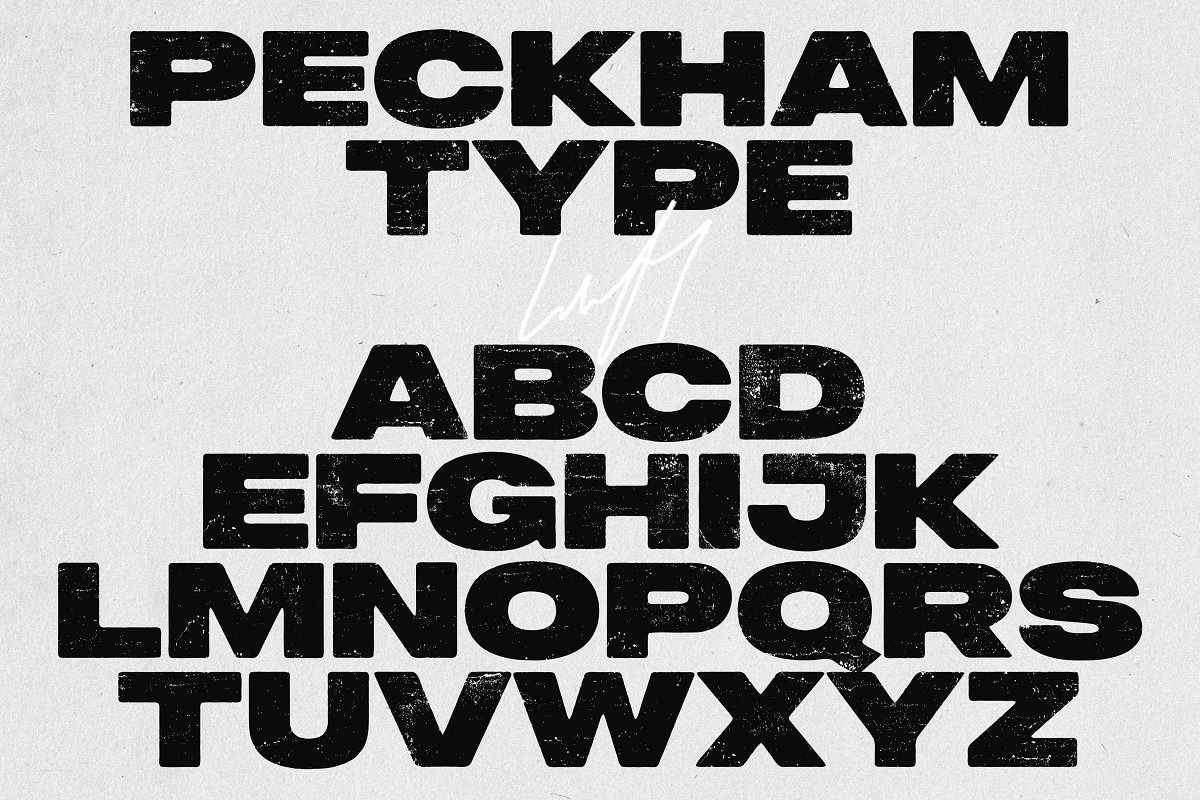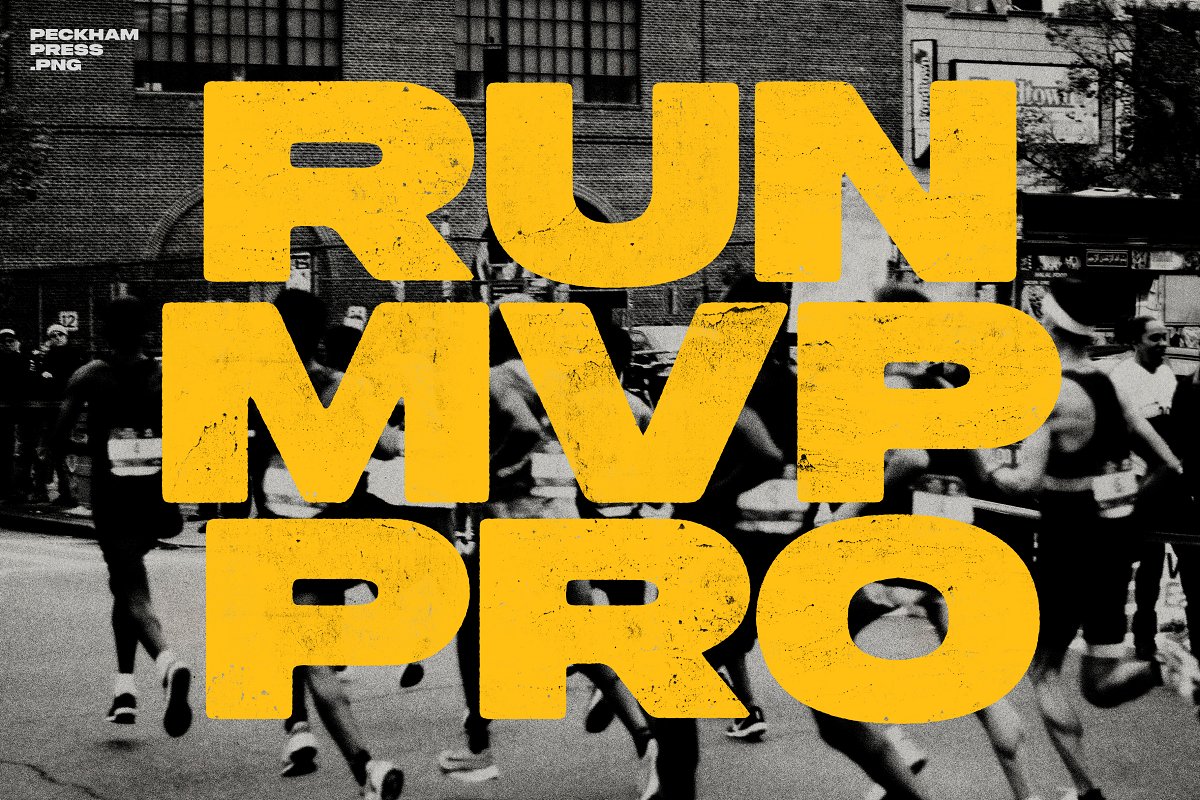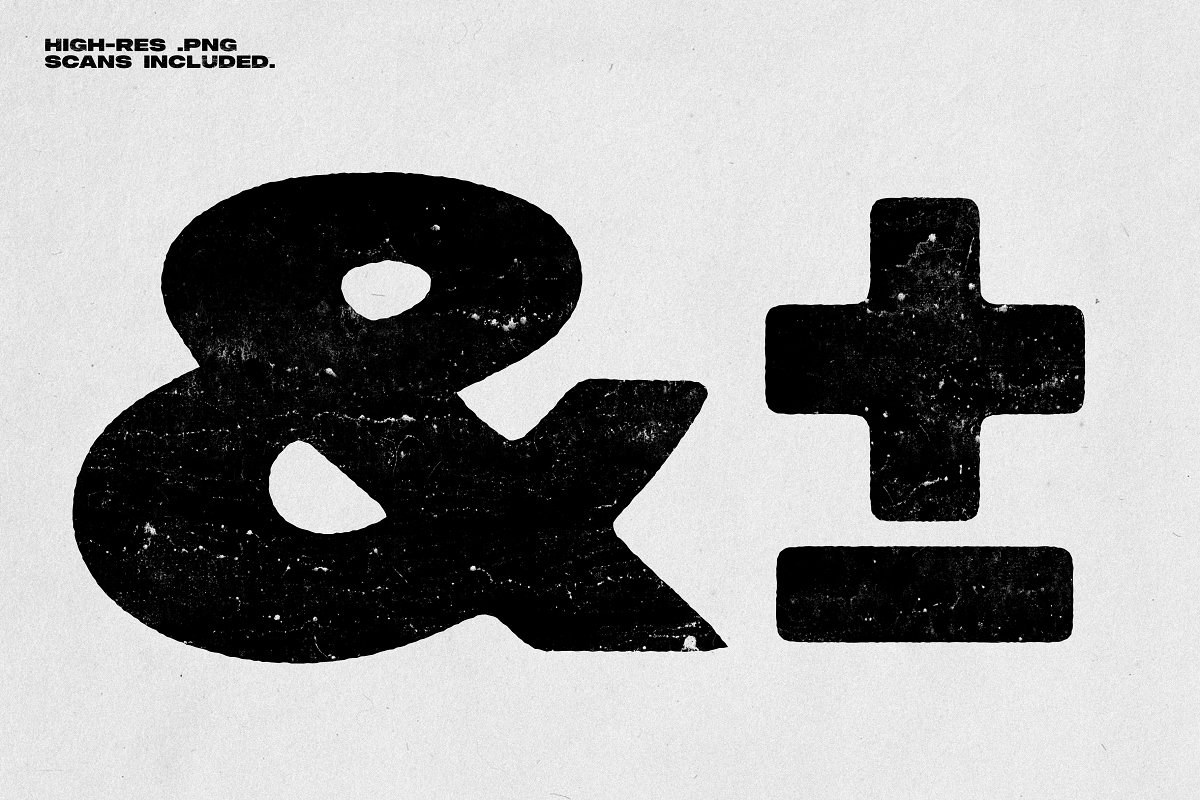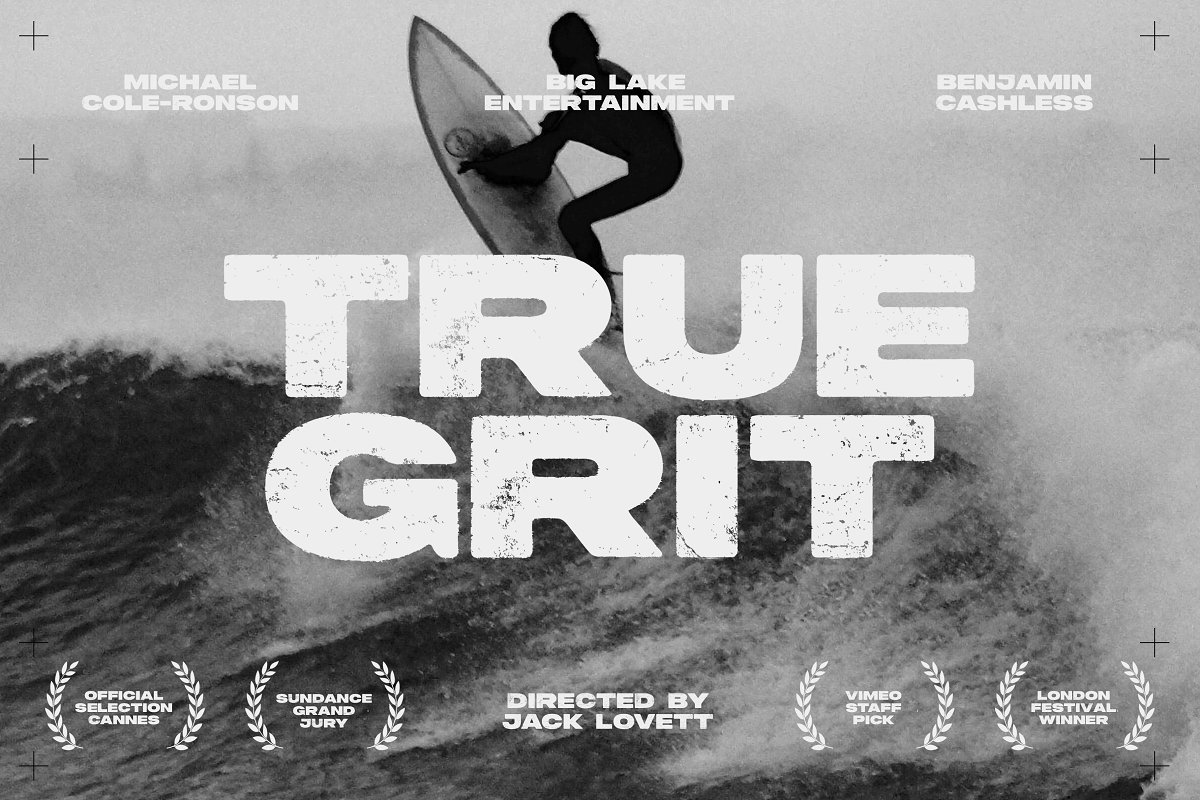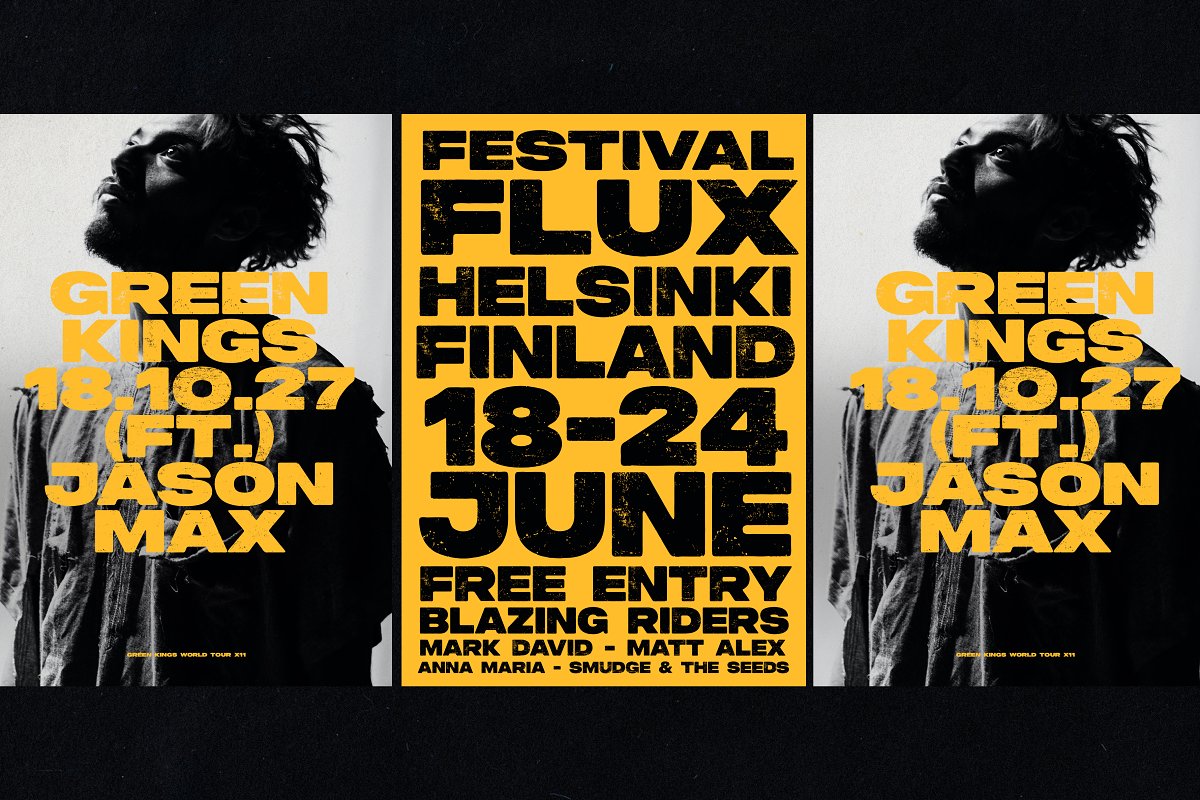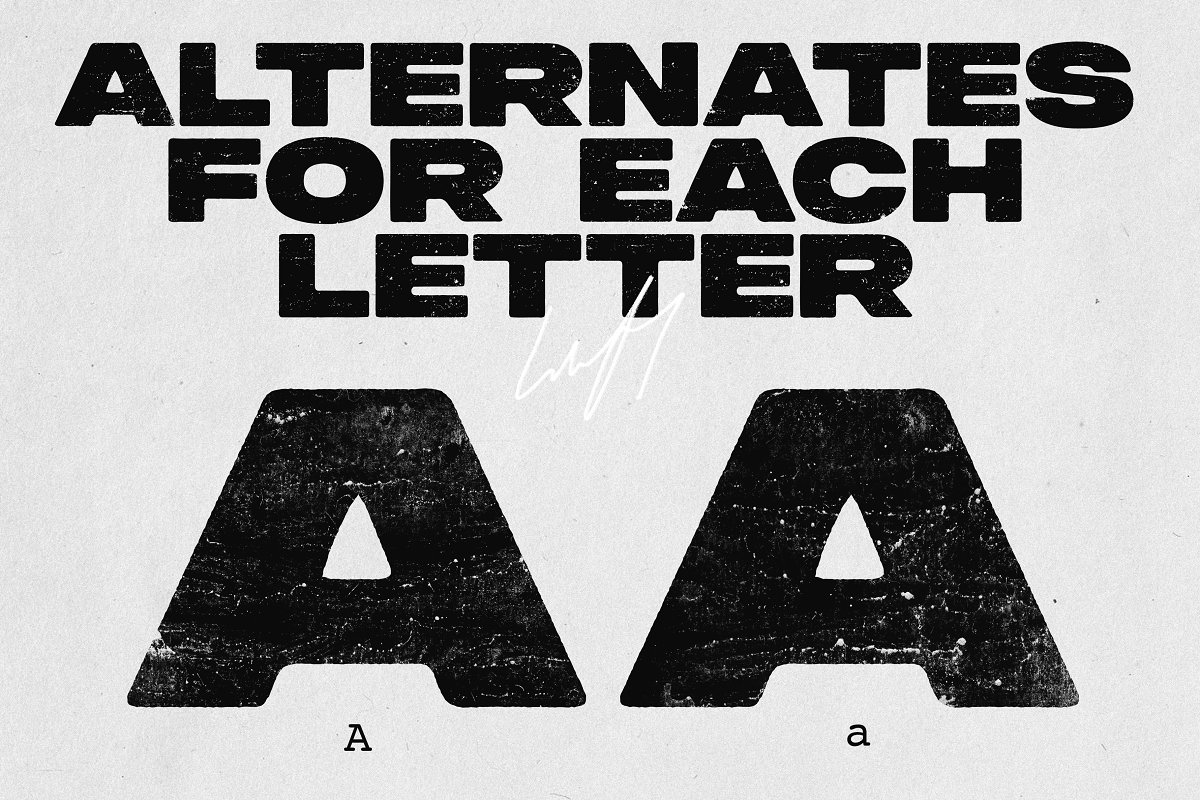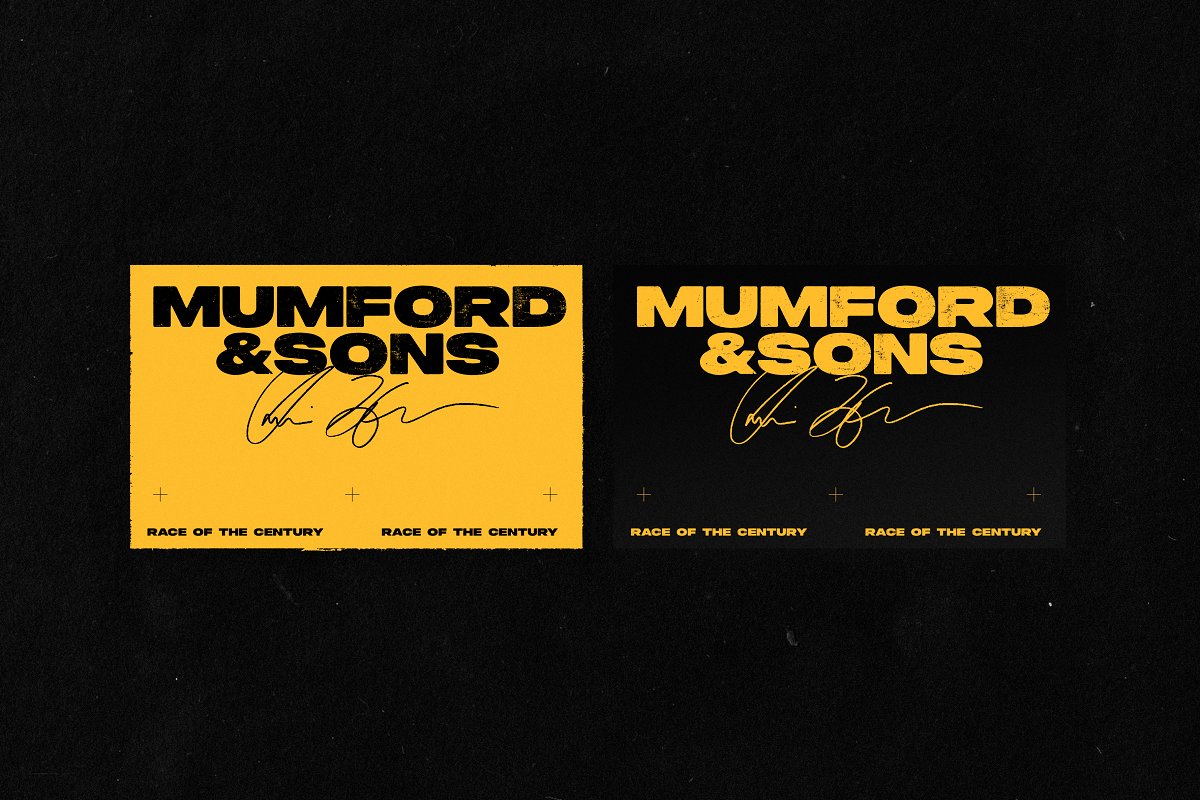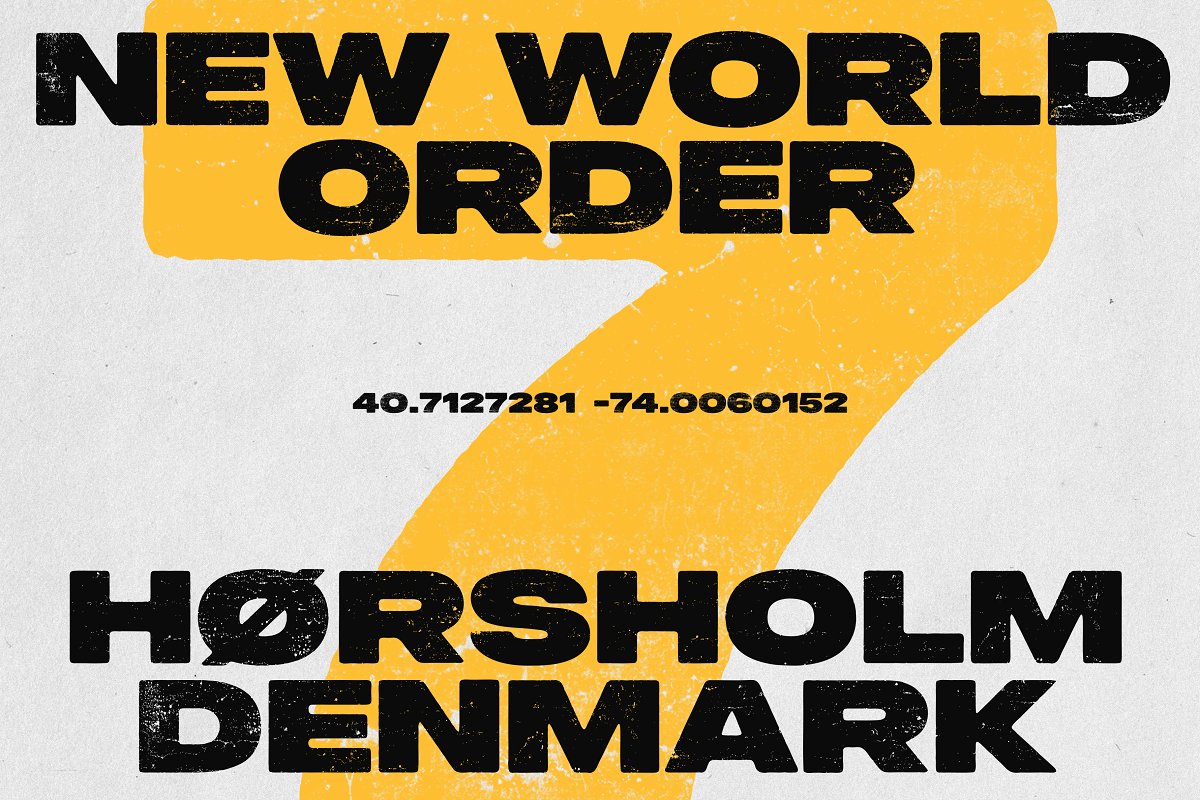
About the Peckham Press Handmade Type Font
Peckham is a bold hand-pressed typefamily, with a raw aesthetic and solid industrial style, The font brings a spirit of street culture, with its defiant shapes, rough edges and unadulterated imperfections, Peckham Press Typefamily includes a vector font and supporting high resolution PNG’s of every glyph, It works best in strong design, and situations that require an authentic voice
This font is handmade and includes full original texture with density variants and original nicks and grit, with access options to suit different needs, The vector format allows the textured affect show up on any program, no additional software or updates required
The PNG’s are included for times when you want to use the font in extra large sizes and you want to make the most of every speck of detail in the prints, Details:Peckham is an all caps font, with two alternatives for every letter, to maintain the custom made look, without obvious doubles